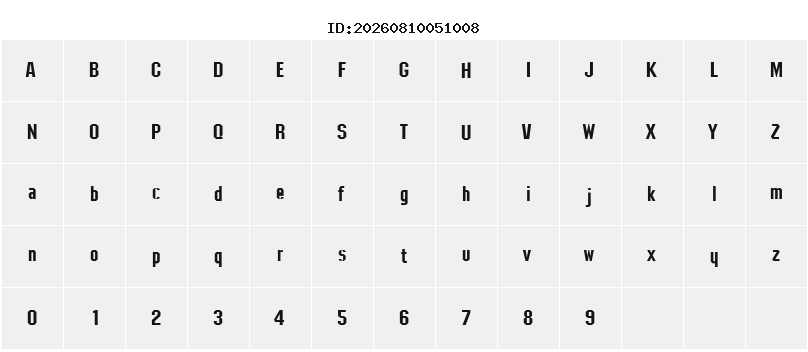
About PSL Samson.ttf
PSL Samson.ttf is a modern, elegant sans-serif font designed for ultimate readability and visual harmony. Perfect for branding, headlines, web design, and print materials.